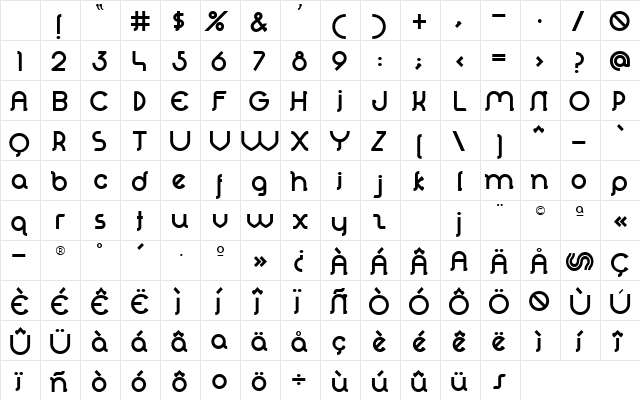
Perolet is a composed and adaptable typeface that performs quietly and consistently across a wide range of design contexts. Its bold stroke weight gives it real presence on the page.